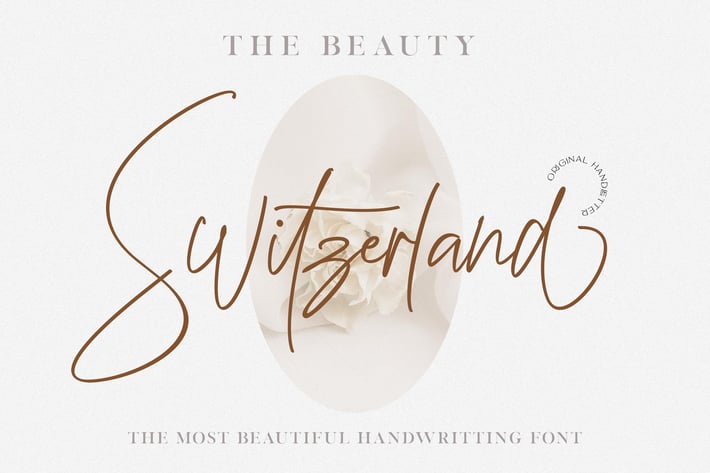
Beauty Switzerland Wedding Font
Beauty Switzerland is an beautiful handwritten font that is suitable for branding, signature, wedding invitation, promotion, product packaging, and other needs. This font is modern, simple, but still authentic.